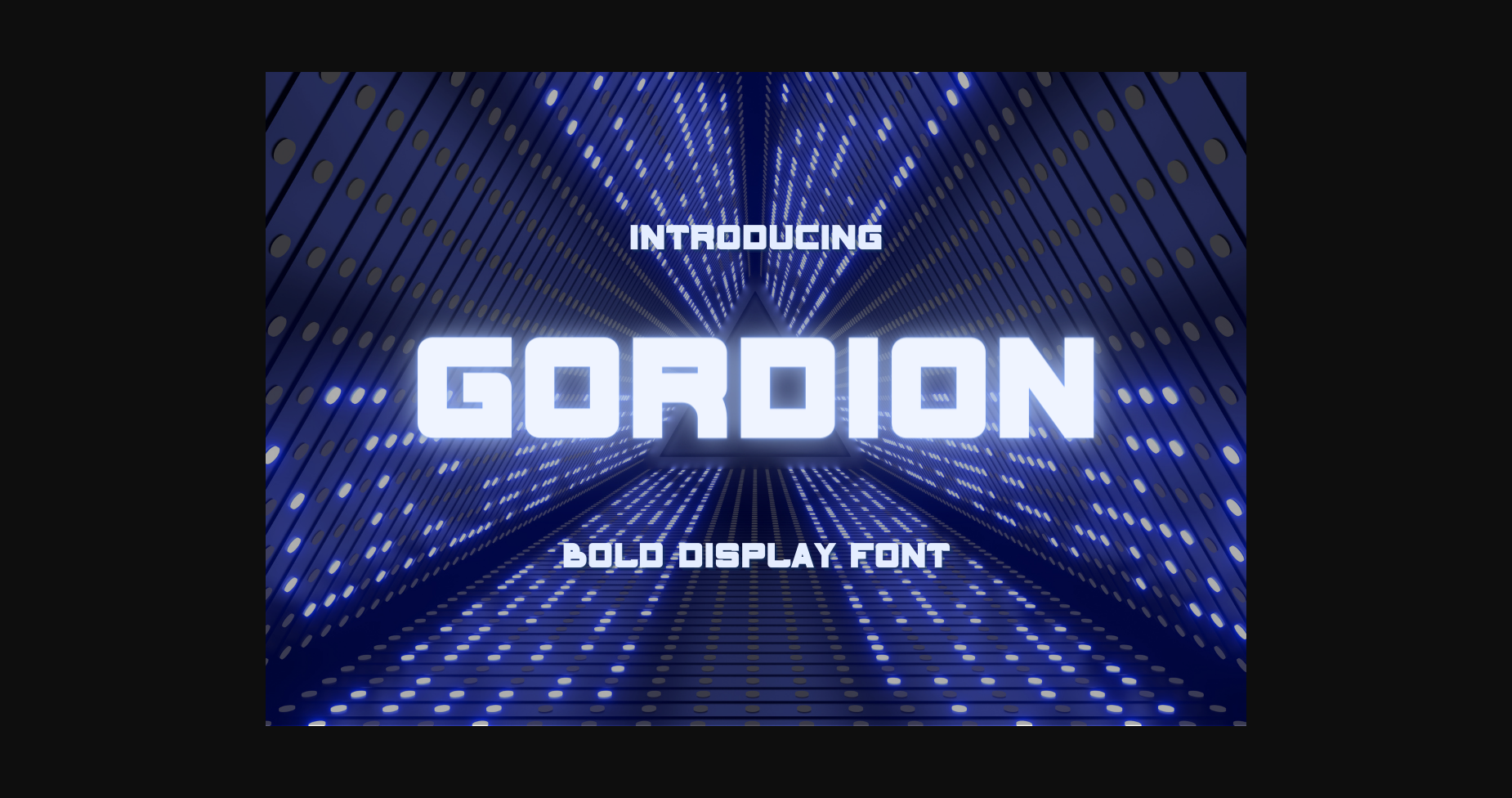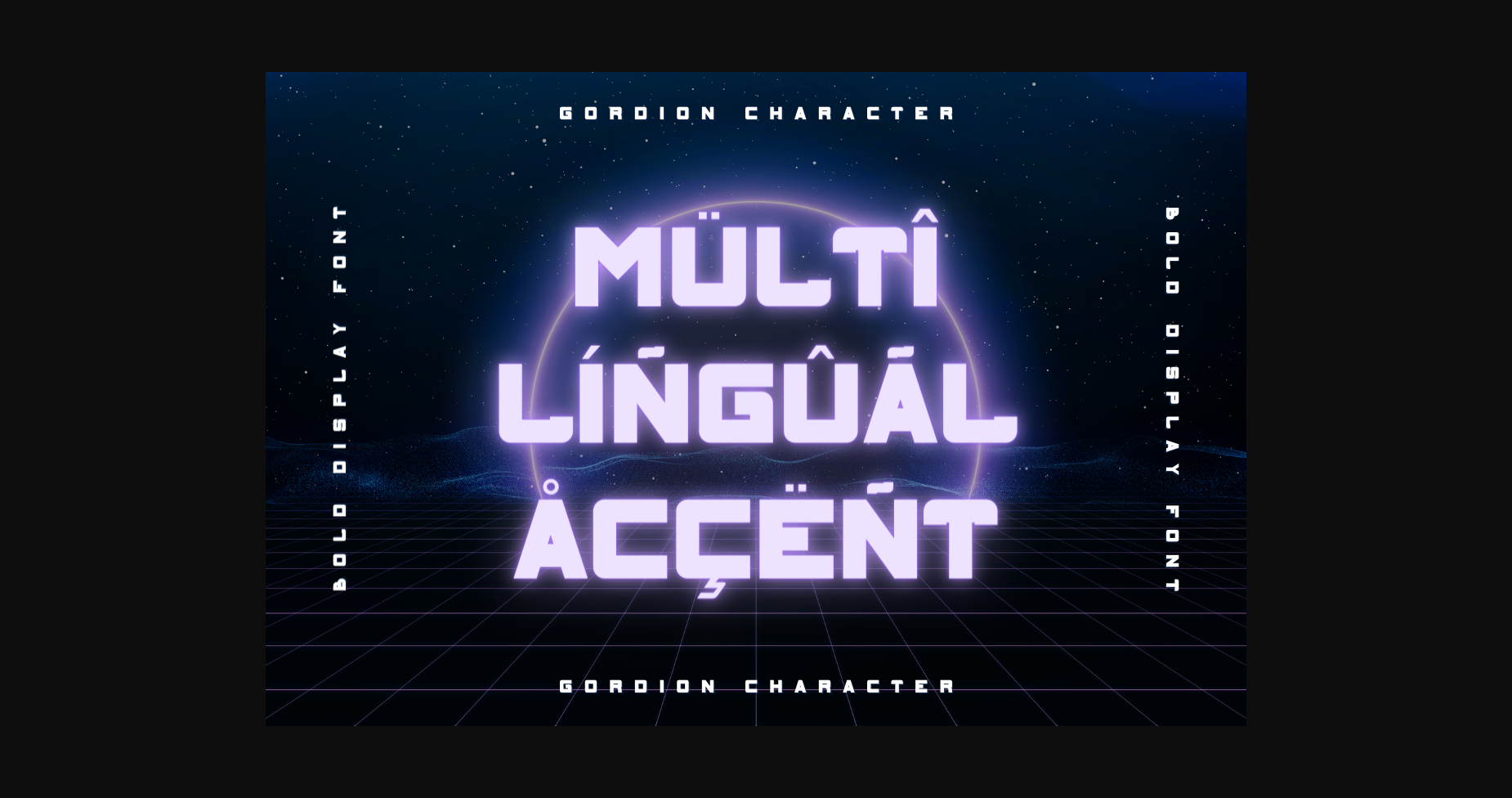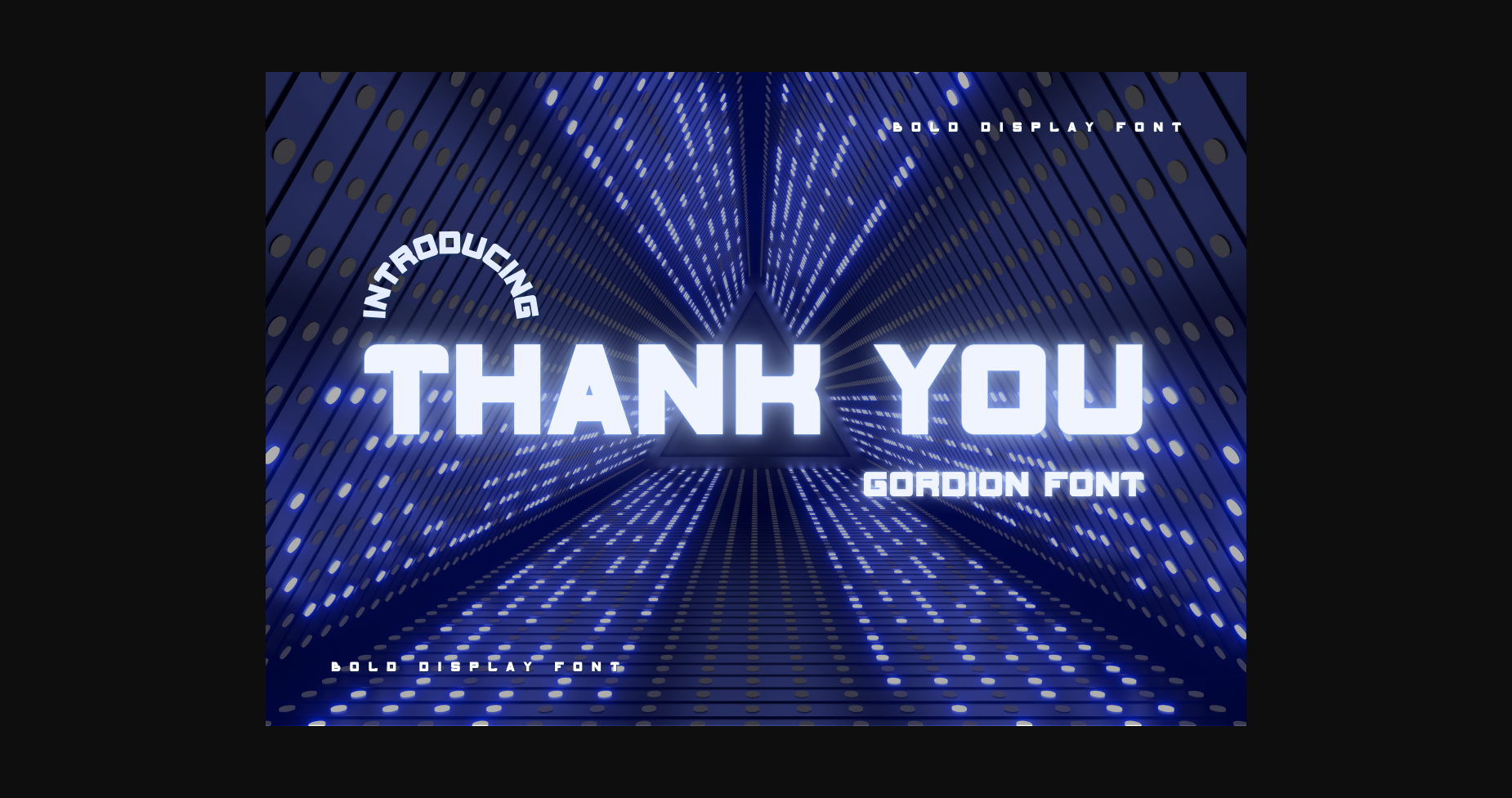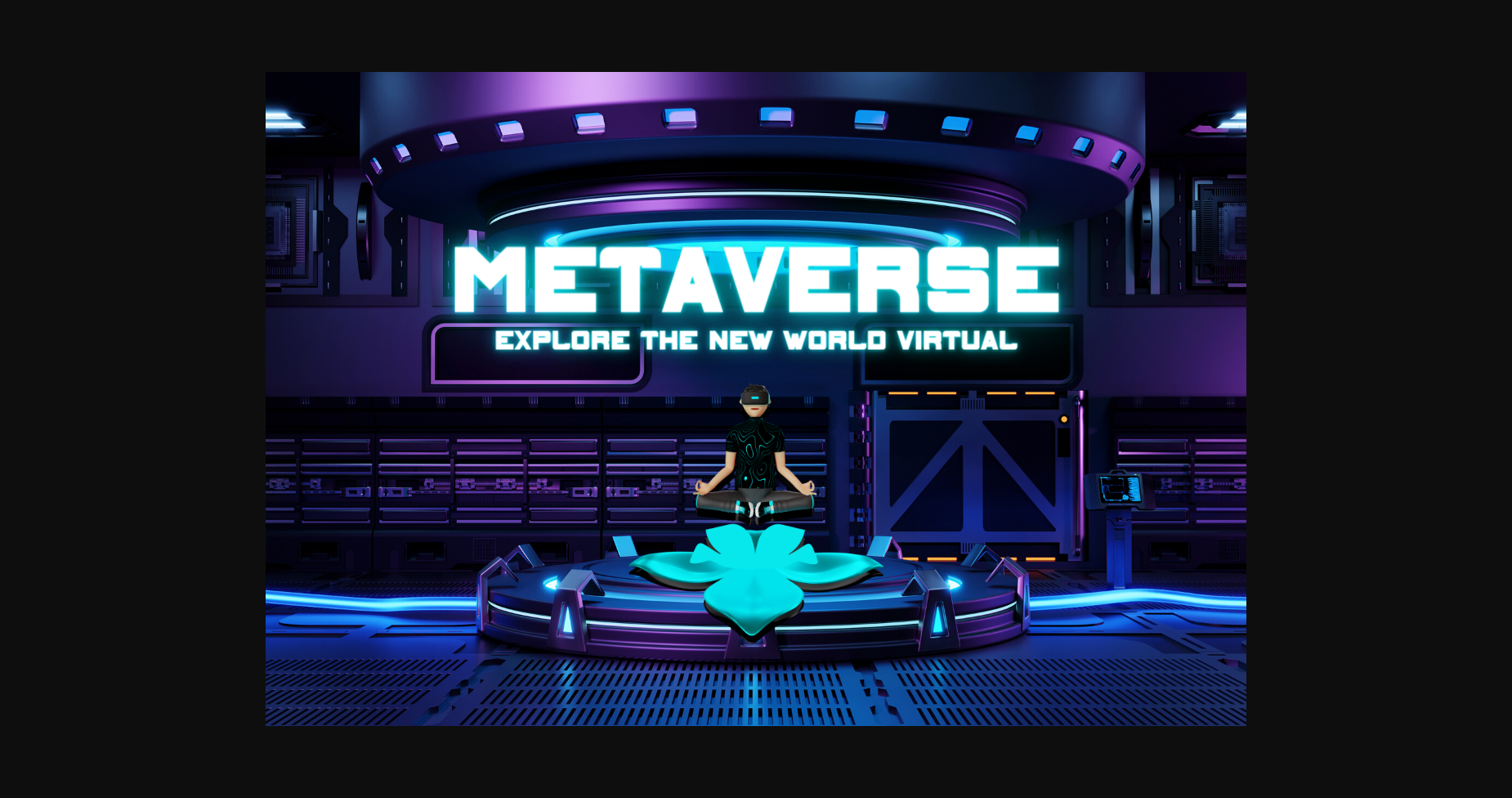
About Gordion Font
Gordion is a modern Sans Serif font perfect for enhancing your creative projects such as logos, branding, business, photography, games, and many other creative ideas.